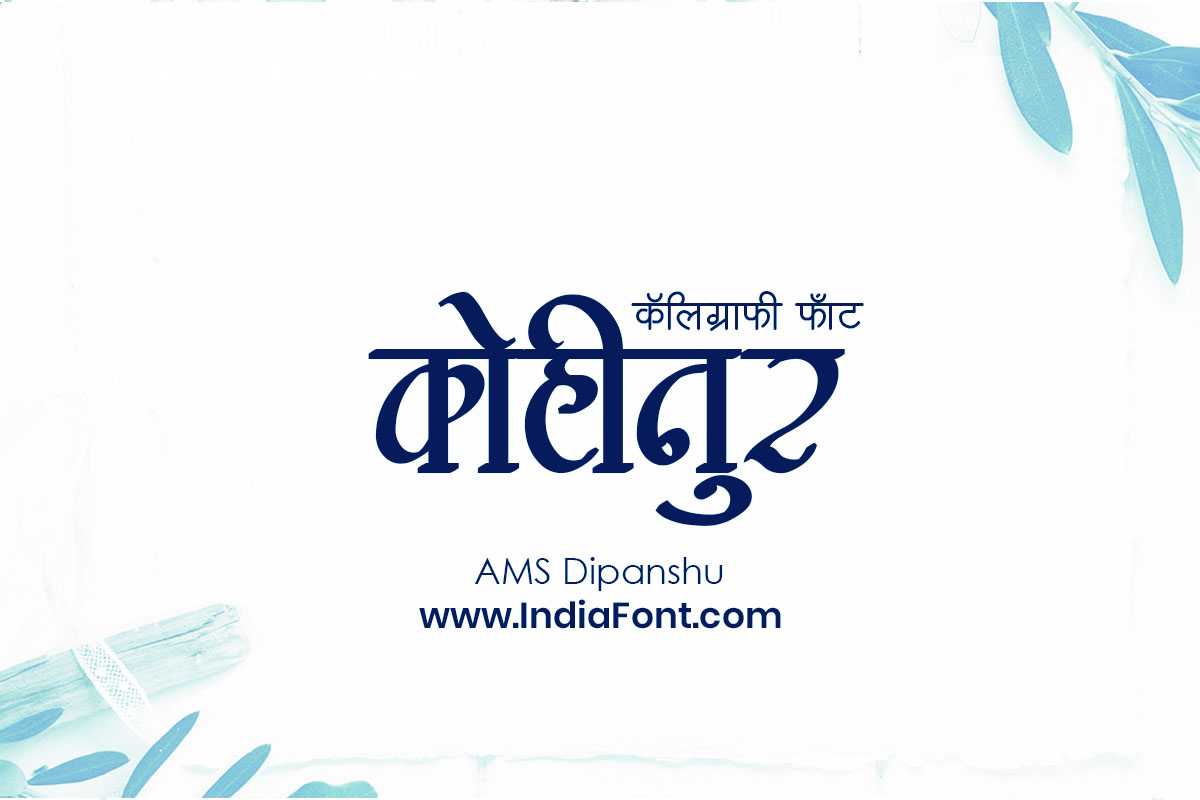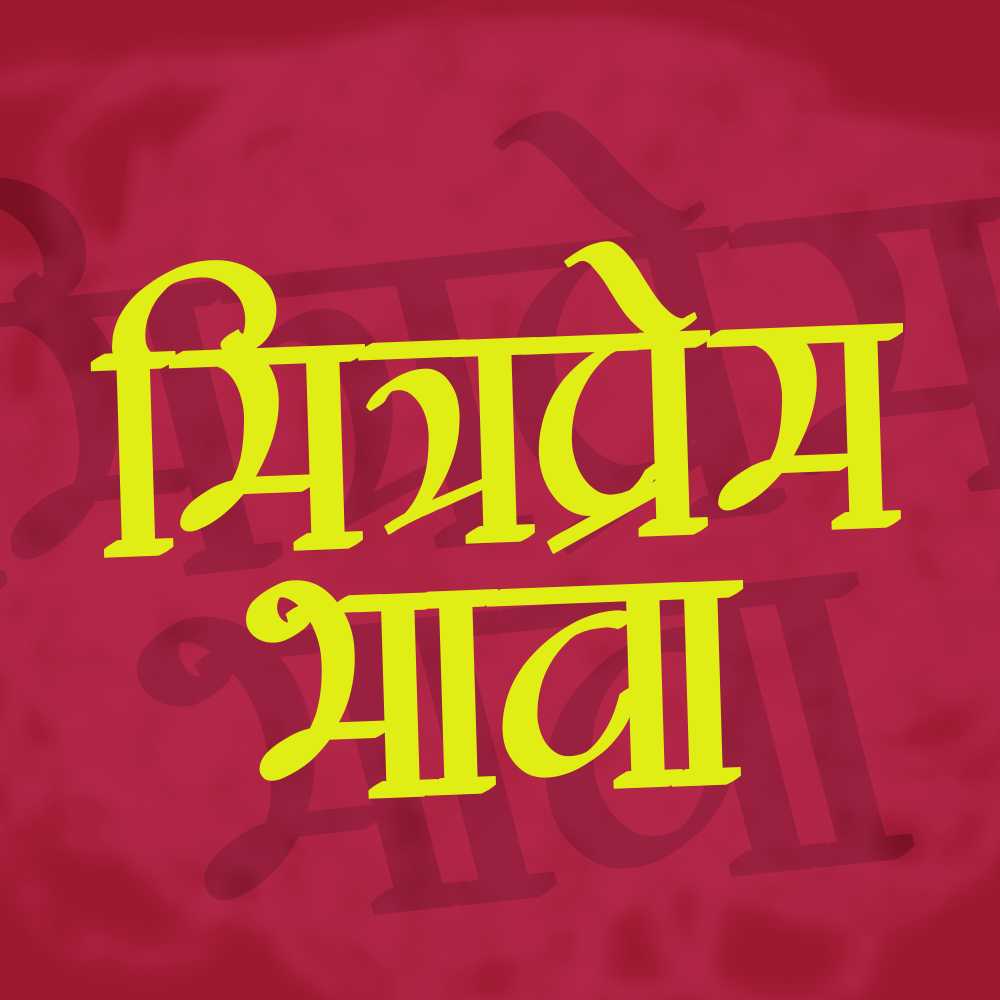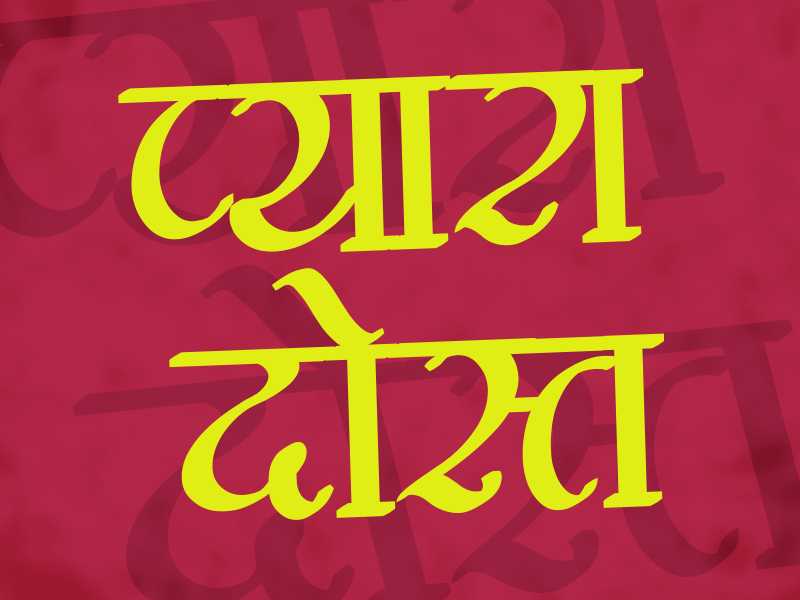
AMS Dipanshu
Discover the artistic beauty of AMS Dipanshu, a Hindi and Marathi calligraphy font that captivates with its expressive letterforms. With its flowing strokes and intricate details, AMS Dipanshu is perfect for those seeking AMS Dipanshu font download options or free AMS calligraphy fonts.
About AMS Dipanshu Font
Discover the artistic beauty of AMS Dipanshu, a Hindi and Marathi calligraphy font that captivates with its expressive letterforms. With its flowing strokes and intricate details, AMS Dipanshu is perfect for those seeking AMS Dipanshu font download options or free AMS calligraphy fonts. This calligraphy font combines elegance with functionality, making it perfect for various design applications.
AMS Dipanshu is a professionally crafted calligraphy typeface that brings clarity and style to your projects. Designed with attention to detail, it supports hindi and marathi characters flawlessly.
Whether you're working on invitations, premium-corporate-branding, product-packaging, or other creative projects, AMS Dipanshu delivers consistent performance across both digital and print media. This carefully designed typeface ensures readability and visual appeal in all your design work.
Why Choose AMS Dipanshu?
AMS Dipanshu excels in various design scenarios. Here are the most suitable applications:
About AMS Dipanshu Typography Style
AMS Dipanshu is a professionally crafted calligraphy font that exemplifies modern Hindi typography design. This free font is perfect for designers seeking versatile design applications.
Available in 1 weight and supporting hindi, marathi scripts, AMS Dipanshu offers exceptional versatility for both digital and print media. Whether you're working on invitations, premium-corporate-branding, product-packaging, this carefully designed typeface ensures consistent quality and professional results across all your typography projects.